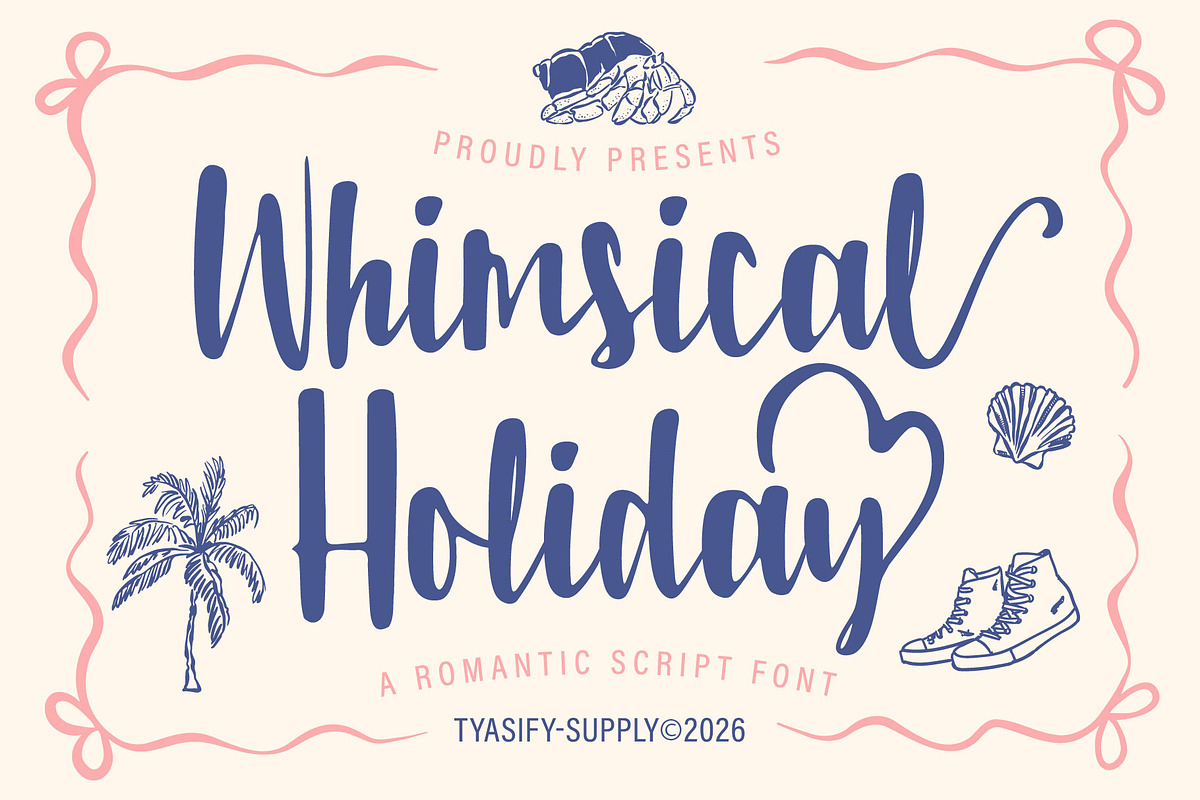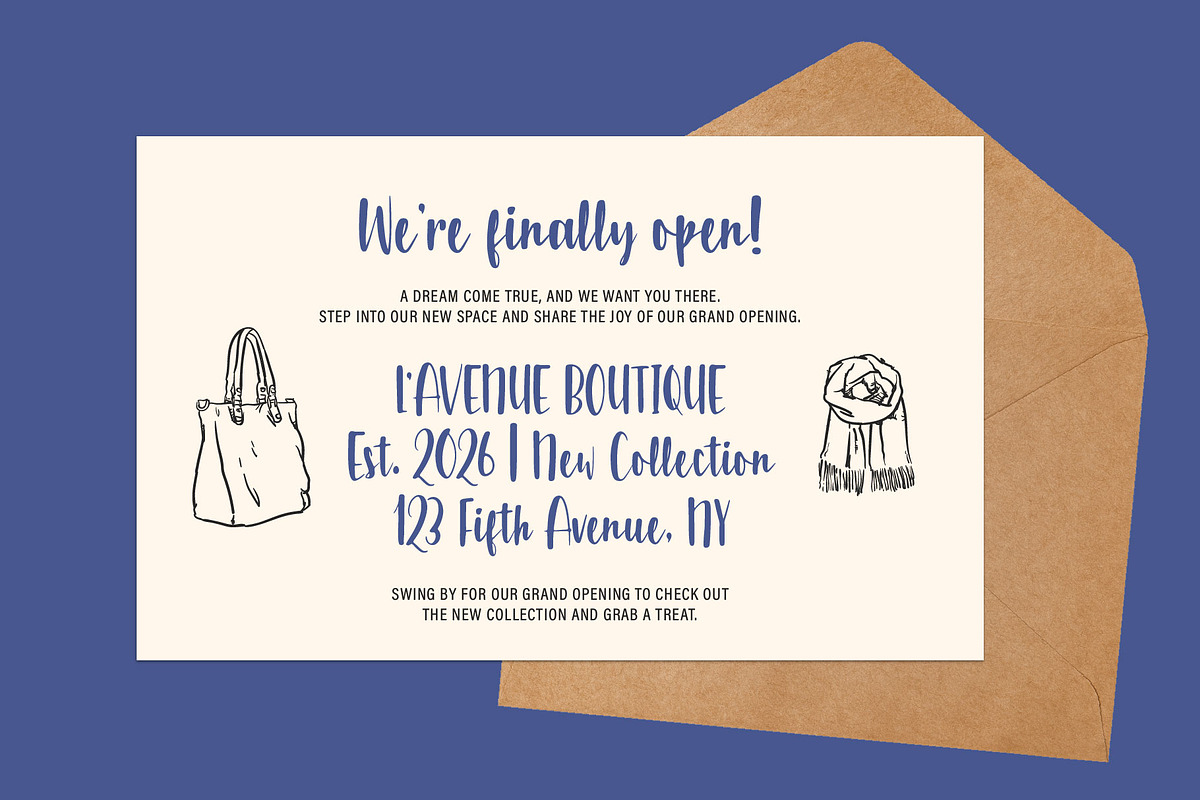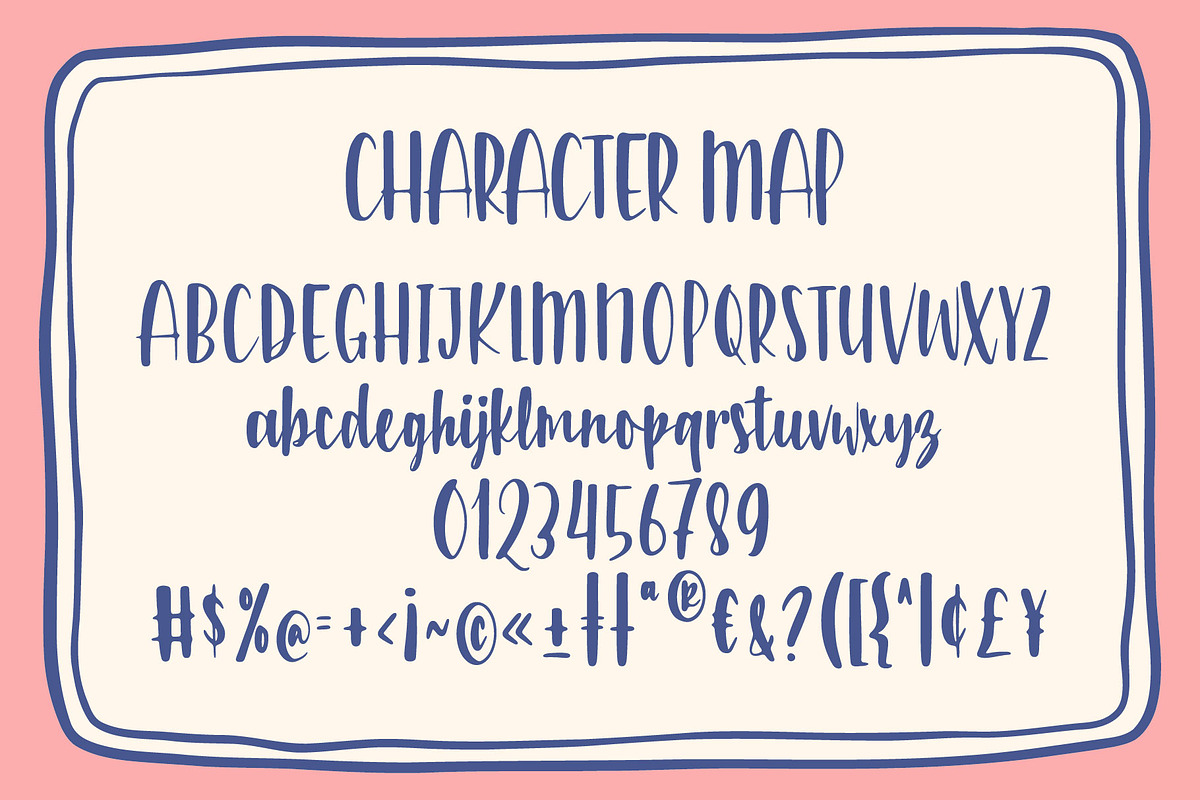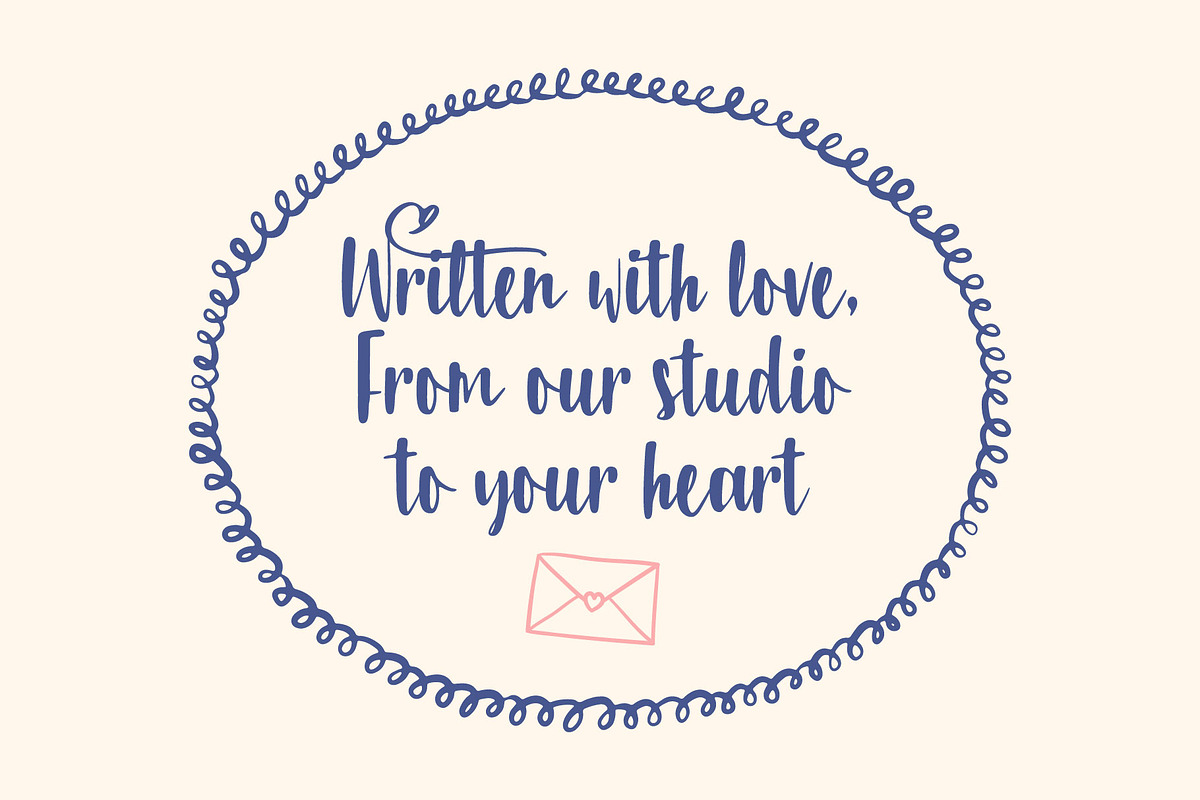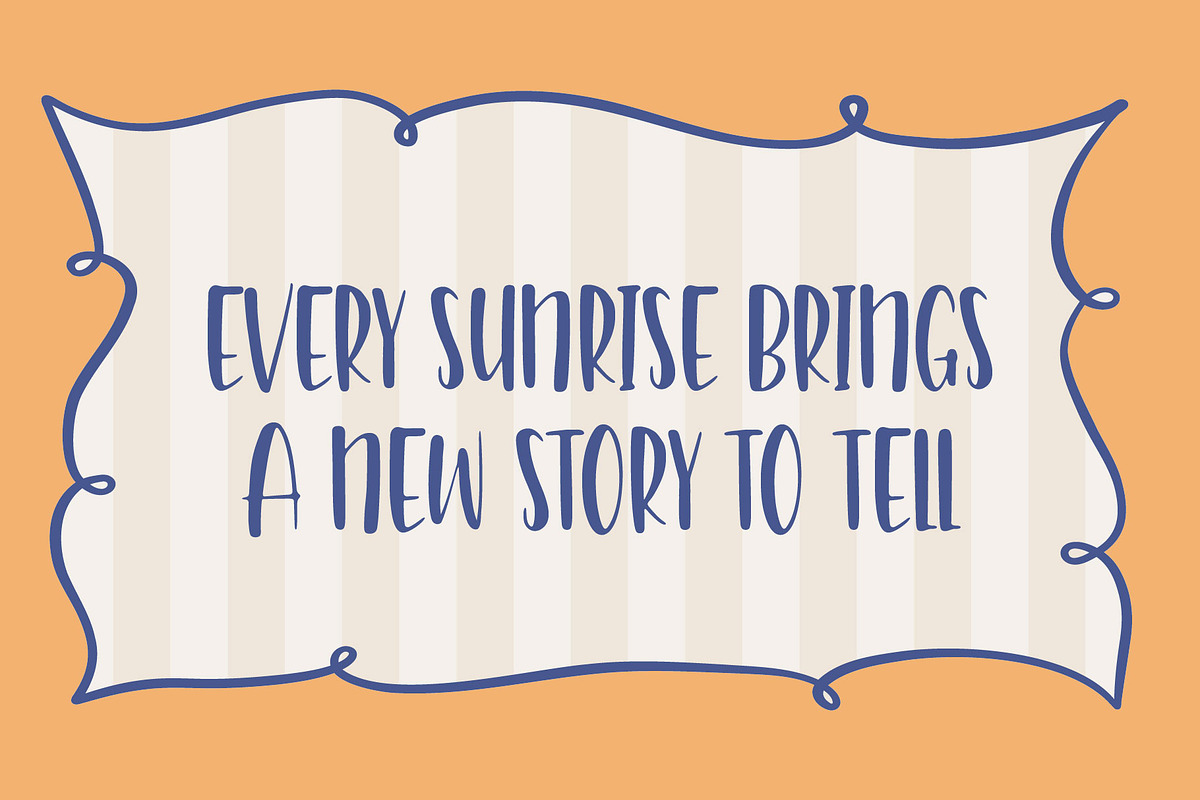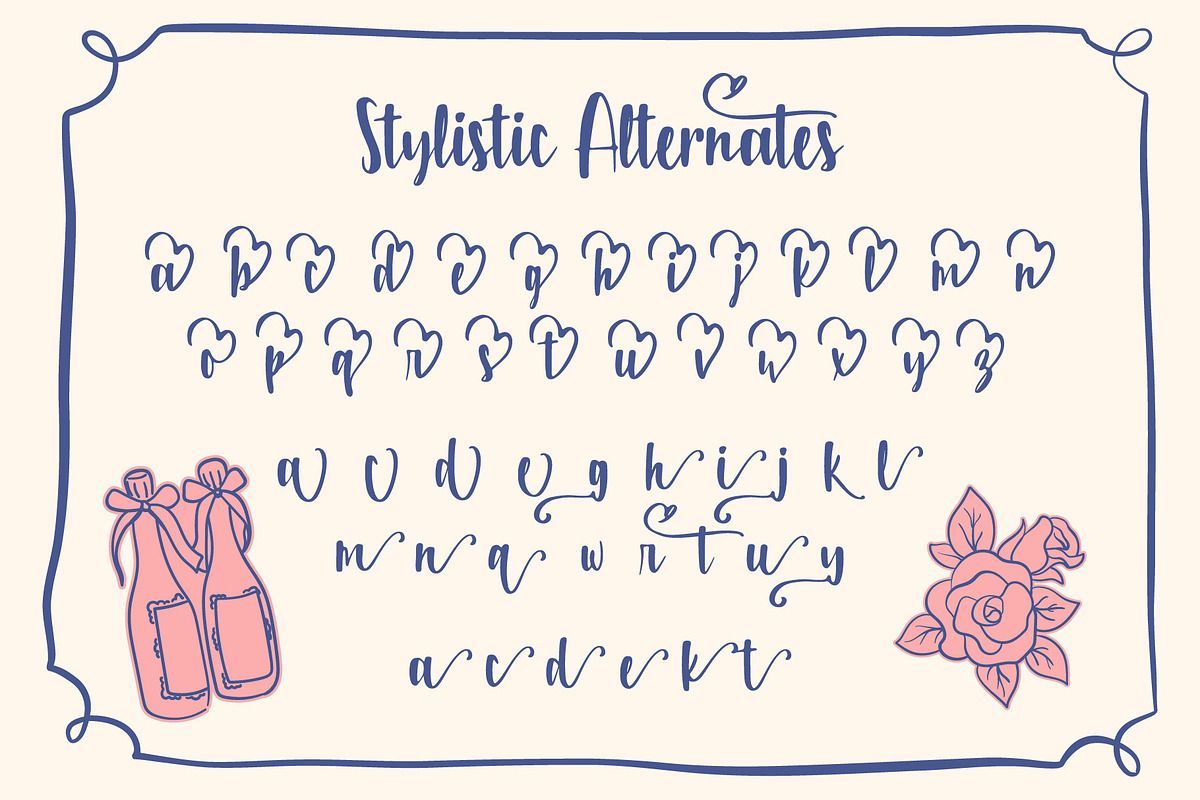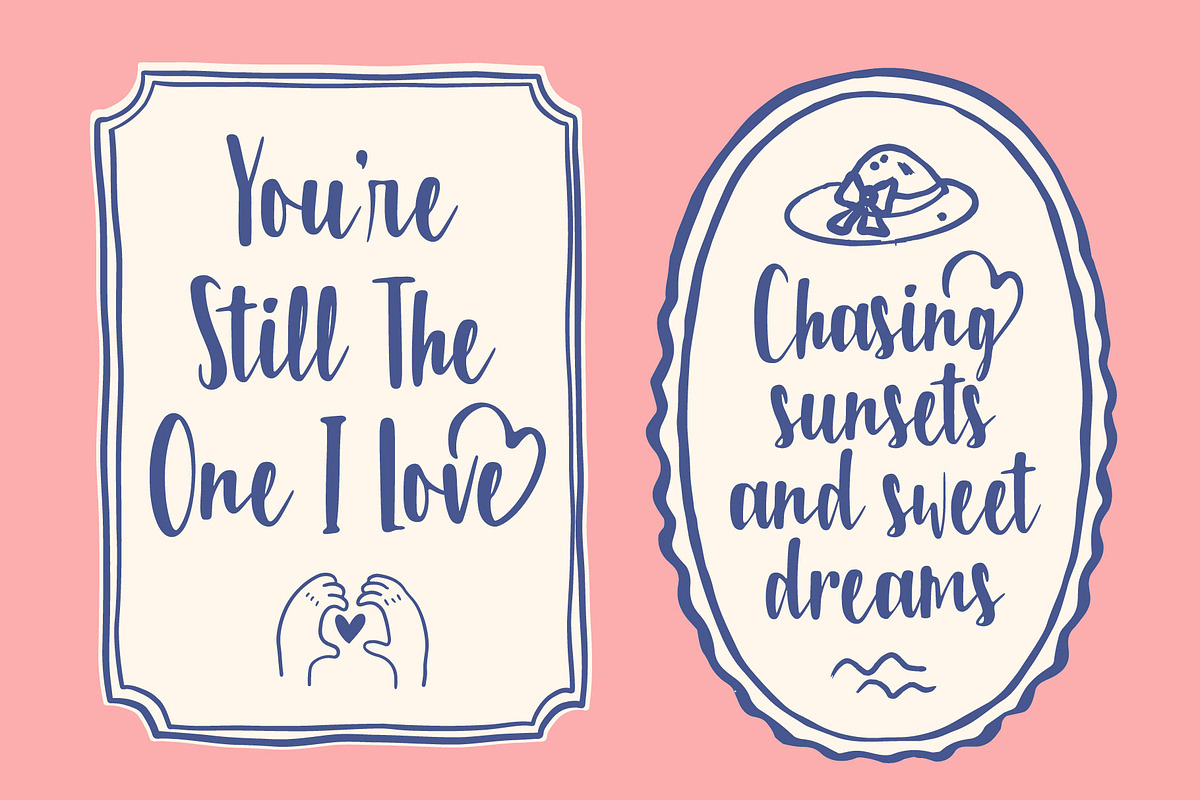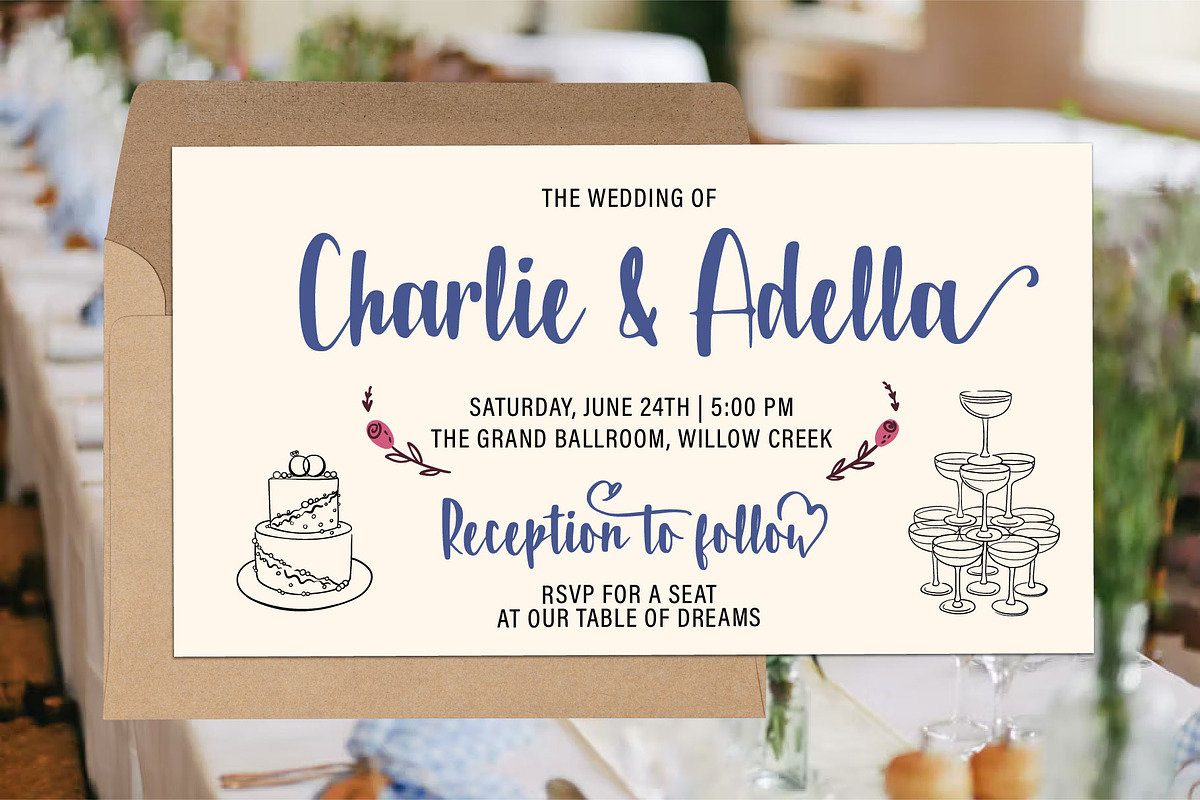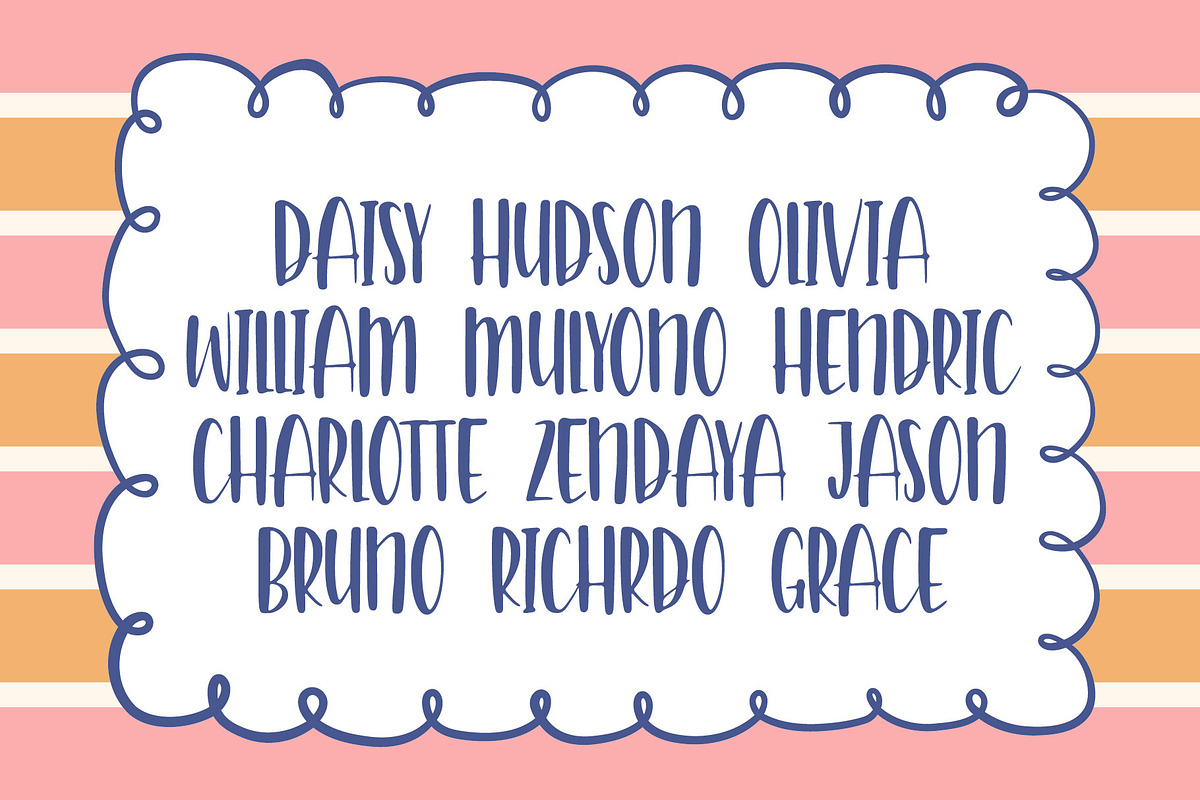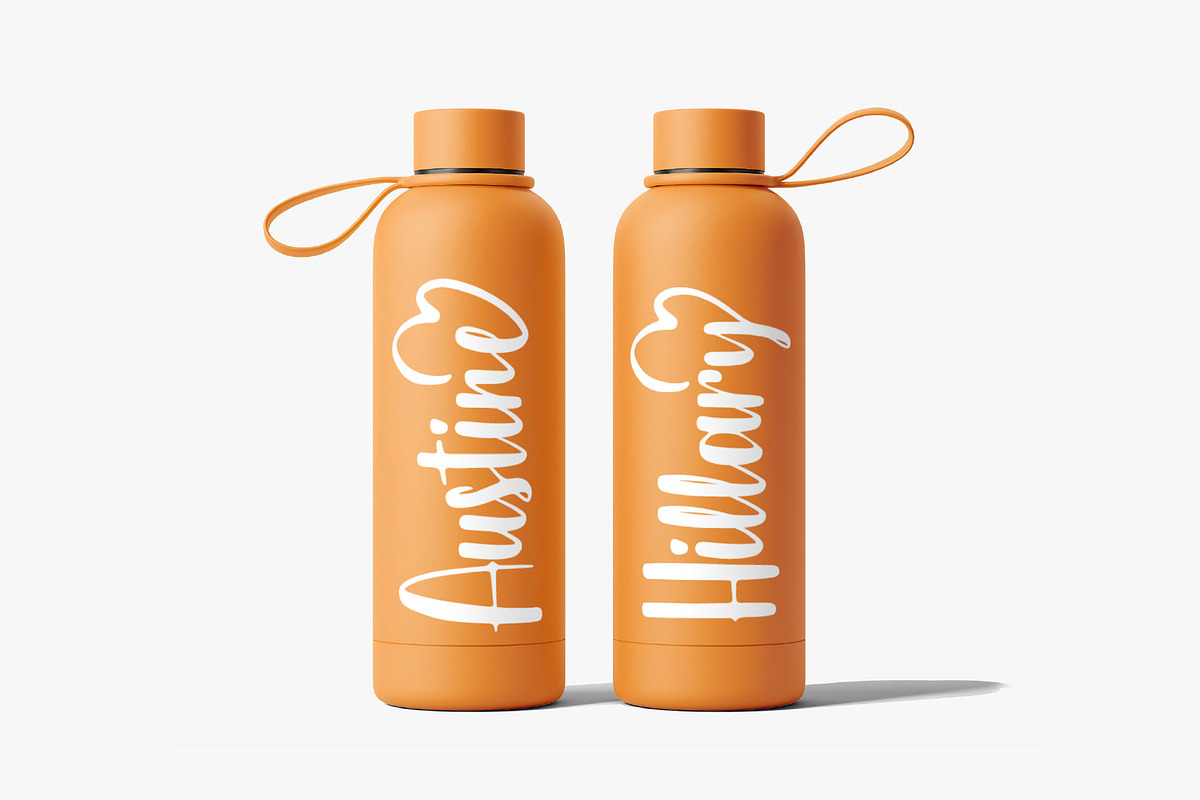
Whimsical Holiday; Romantic Script
A Romantic Script Font Full of Charm and Sweet Elegance
Whimsical Holiday is a beautifully handcrafted script font designed to bring warmth, romance, and personality to every project. Featuring smooth flowing strokes, playful curves, and an organic handwritten feel, this font captures the beauty of authentic lettering while remaining highly versatile and easy to use.
Perfect for creatives who love feminine, charming, and heartfelt aesthetics, Whimsical Holiday shines in branding, wedding stationery, social media content, product packaging, greeting cards, handmade businesses, and lifestyle brands. Its natural rhythm and whimsical character create a friendly and inviting look that instantly feels personal and memorable.
Whether you're designing for a boutique brand, creating wedding invitations, crafting beautiful Instagram content, or adding a romantic touch to your products, Whimsical Holiday helps your message feel genuine, elegant, and full of character.
Why You'll Love It
Authentic handcrafted script style
Smooth and organic letterforms
Romantic and feminine personality
Perfect balance of playful and elegant
Ideal for branding and social media
Easy to pair with serif and sans-serif fonts
Beautiful for both print and digital projects
Wedding Invitations
Bridal Branding
Boutique Logos
Beauty & Skincare Brands
Handmade Product Packaging
Lifestyle Branding
Greeting Cards
Craft Businesses
Photography Watermarks
Quote Designs
Etsy Shops
Blog Headers
Fashion Branding
Feminine Business Identity